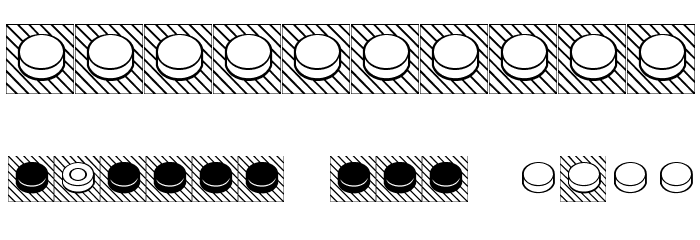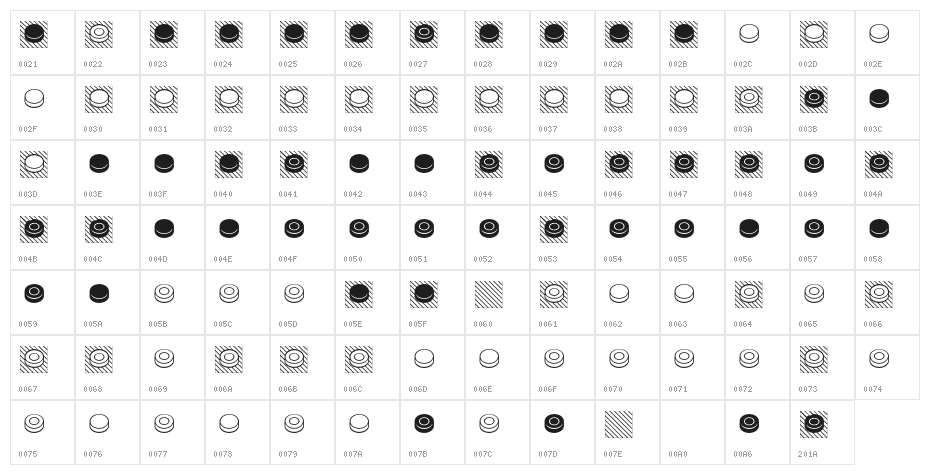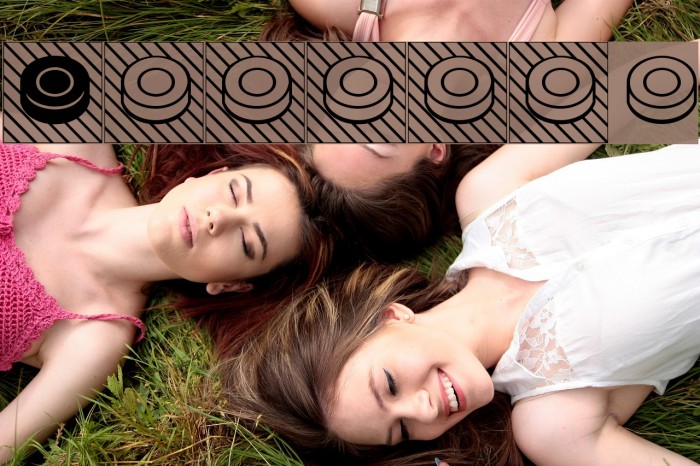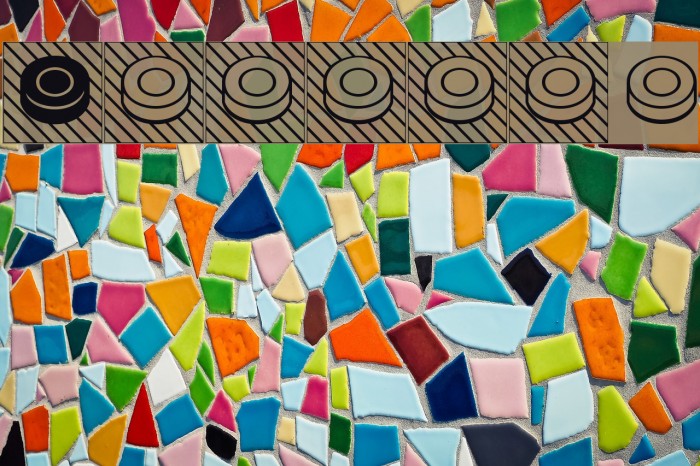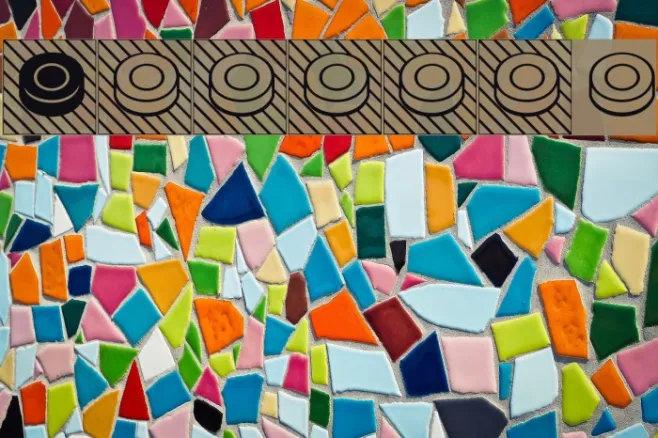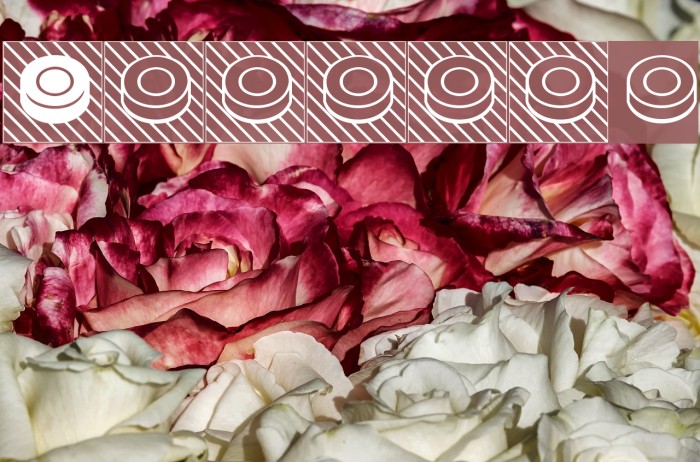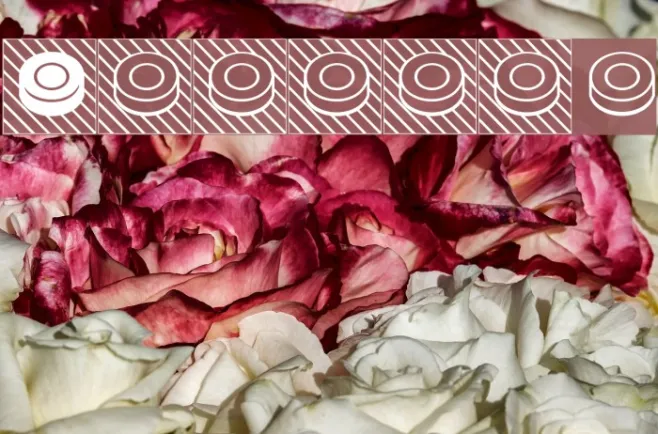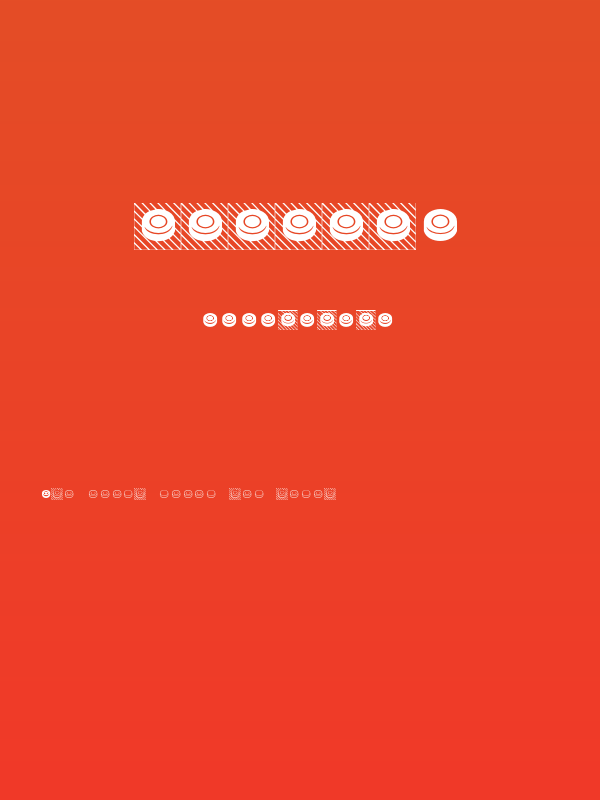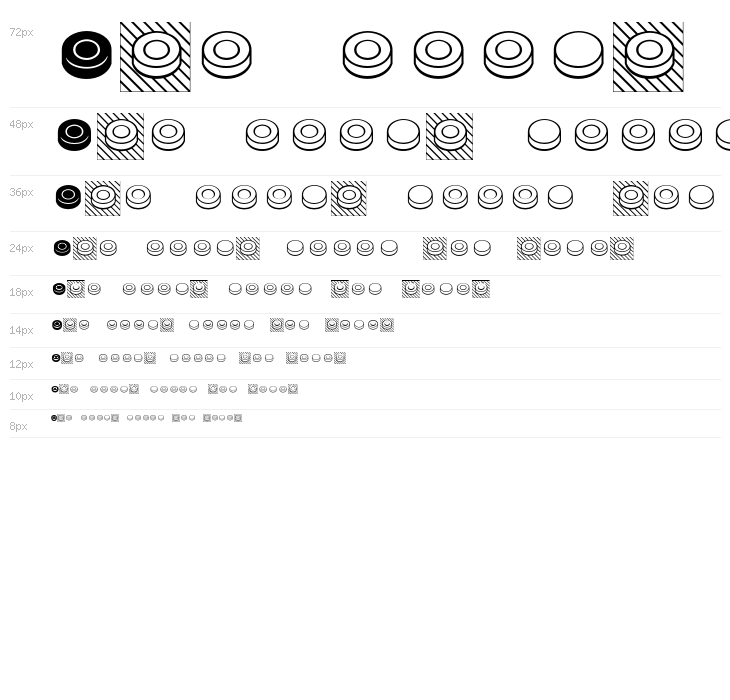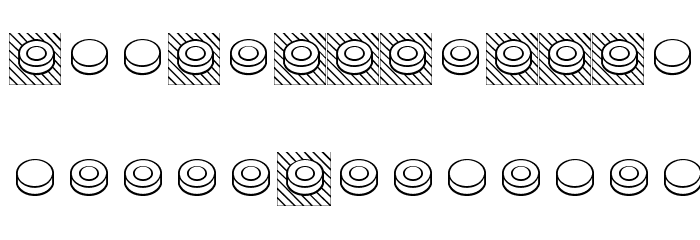
Shashki Font
Shashki Description
A decorative font composed of circular checker pieces with alternating filled and outlined styles, some enclosed in hatched square backgrounds, resembling game tokens or checkers.
| Overall Style | Playful, Retro, Decorative |
| Use Case | Logos, Headlines, Themed designs |
| Proposed Projects | Game design, board game branding, playful or retro-themed projects, children's materials. |